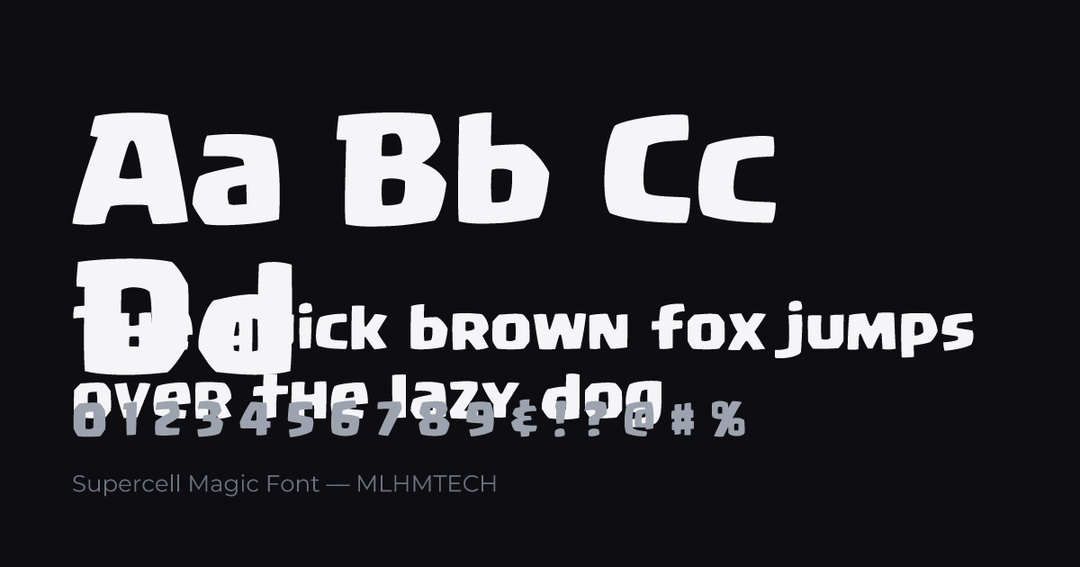
Supercell Magic Font
Supercell Magic is a bold, playful display font that adds a touch of magic to your titles and graphics. Ideal for video editing, thumbnails, and branding.
Supercell Magic is a distinctive display font that combines bold, rounded letterforms with a whimsical, handcrafted feel. Its high legibility and strong character make it perfect for grabbing attention in video titles, social media graphics, and promotional materials.